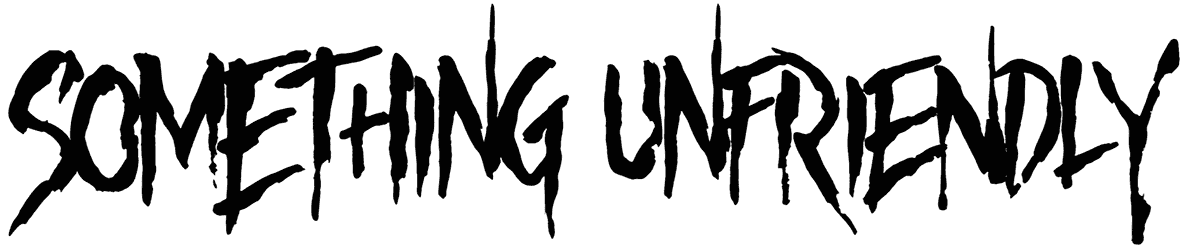
Something Unfriendly Font
Honestly, this death font couldn’t have been called anything better than this. That’s exactly the kind of scratched bloody note you may find on the wall of your room when you’re living with something unfriendly. Hence the name….!
Customize your lettering with Something Unfriendly, and sure enough, you get to give anyone unlucky enough to run into it the worst feeling ever. Looks like you’ve just found a new reason to resume that horror game logo project you were working on.
Something Unfriendly is a horror font produced using a dark water-based poster ink and a round brush. Applied on a rough paper to achieve the jagged and slow-dripping look on each glyph. The results are some ominous undertones ready to be used for your horror-themed projects. Try to combine the uppercase and lowercase letters to get a unique presentation.